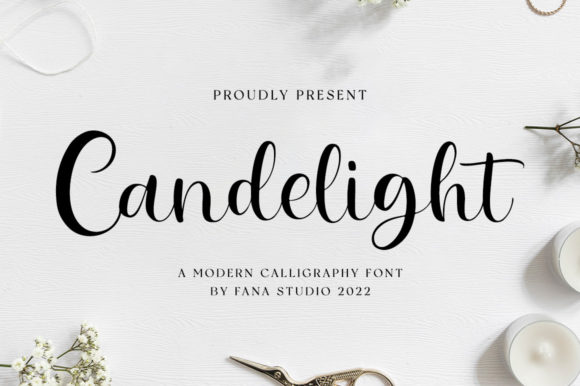
The Magic of Candelight Font: A Designer’s Delight
I still remember the time I was working on a wedding invitation project, and my client asked for a font that was elegant, yet playful. I scoured the internet, trying out font after font, but nothing seemed quite right. That was until I stumbled upon Candelight Font. ✨ It was love at first sight! This stylish and dainty script font has been a game-changer for my design projects, and I’m excited to share its magic with you.
An Honest Review of Candelight Font
- ✨ Elegant and sophisticated, yet approachable and playful
- 💫 Beautifully crafted with intricate details and swashes
- 🎨 Versatile and suitable for a wide range of projects, from logos to watermarks
While Candelight Font is an amazing font, there are a few things to keep in mind: 🤔
- ⚠️ Some characters may not work well in all contexts, such as all-caps headings
- Experiment with OpenType features, such as swashes and stylistic alternates, to add visual interest
- Experiment with glyphs, swashes, and stylistic alternates to add depth and visual interest to your design
The Backstory of Candelight Font
Candelight Font was designed with the intention of capturing the warmth and elegance of candlelight. The designer, inspired by the soft glow of candles, aimed to create a font that would evoke feelings of comfort and sophistication. With its intricate details and swashes, Candelight Font is perfect for adding a touch of luxury to any design project.
Q: What is Candelight Font best suited for?
A: Candelight Font is suitable for a wide range of projects, including logos, branding projects, labels, photography, watermarks, special events, and more.
Q: Is Candelight Font suitable for body text?
A: While Candelight Font is highly legible, it’s best suited for headings and titles rather than body text. Its elegant and playful feel makes it perfect for adding visual interest to your design, but it may not be the best choice for long blocks of text.